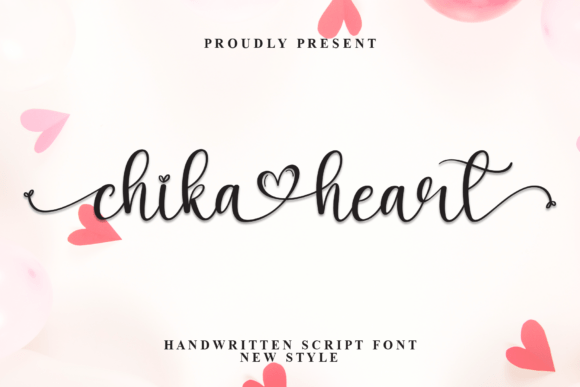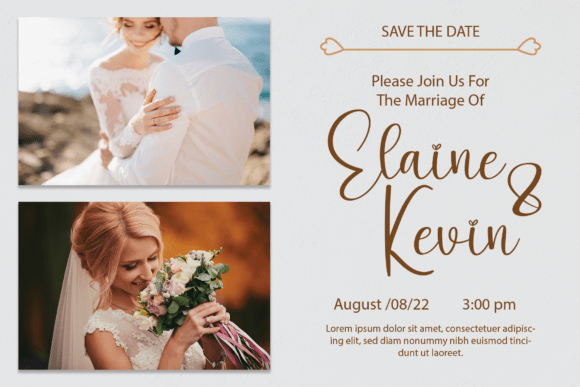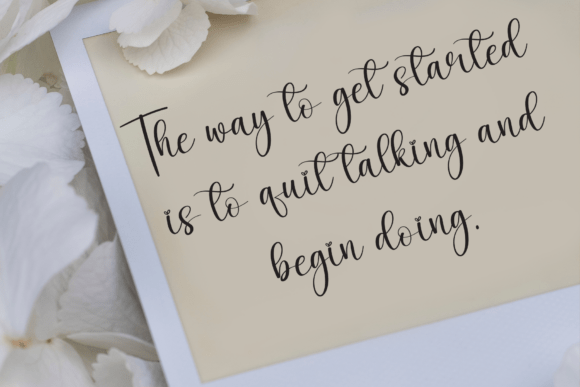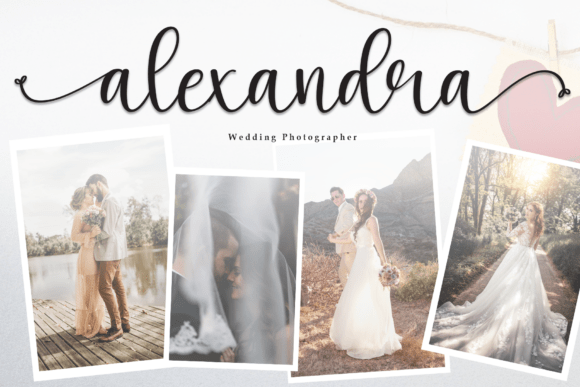
Chika Heart Font
About the Chika Heart Font
The Chika Heart Font is here to transform your projects with its distinctive character and style. Chika Heart is a stylish handwritten script font that exudes elegance and charm with its fluid, graceful strokes. Perfect for branding, invitations, and stationery, it adds a personal and sophisticated touch. The smooth curves and natural flow create a timeless, refined look for any design.
Chika Heart Font Usage Examples
Chika Heart Font Example